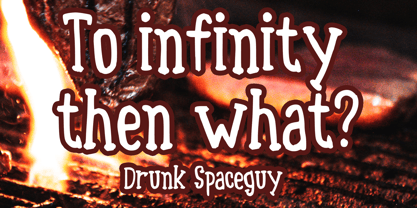
Barbeque Grill
by Mvmet
The Barbeque Grill Font Family was designed by Gabriel Valentinus and published by Mvmet. Barbeque Grill contains 1 styles. More about this family
Barbeque Grill is a whimsical skinny bouncy font. You can use it for anything ranging from t-shirts, book designs, restaurant or cafe menu, greeting cards, stickers, and posters, or anything that needs a casual touch. Try it to create lovely designs and feel the good vibes with it!
Designers: Gabriel Valentinus
Foundry: Mvmet